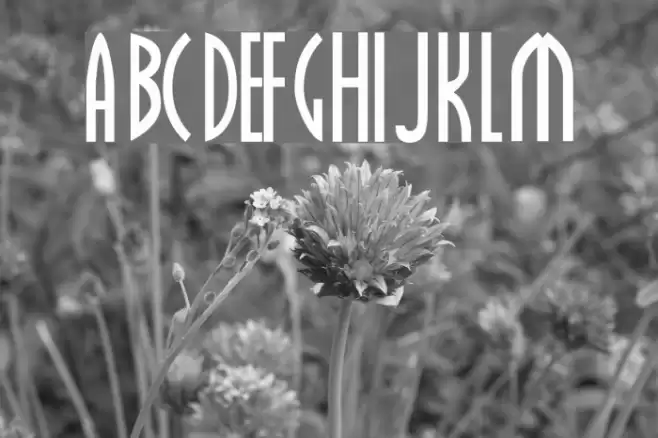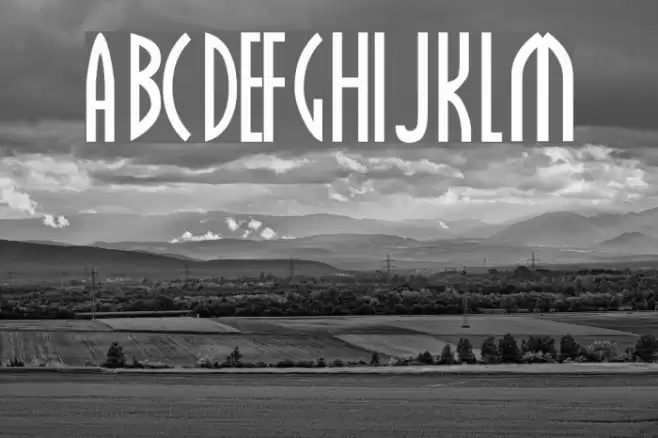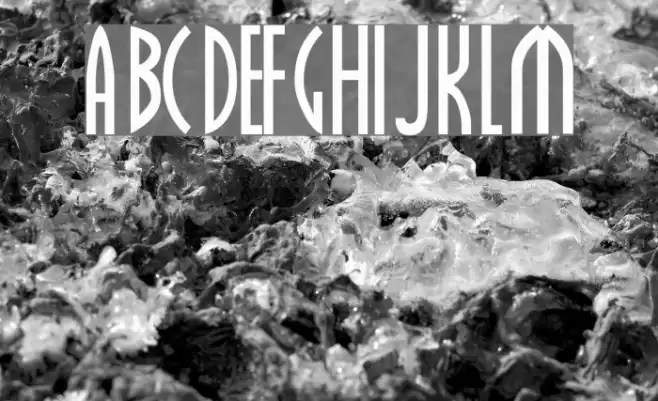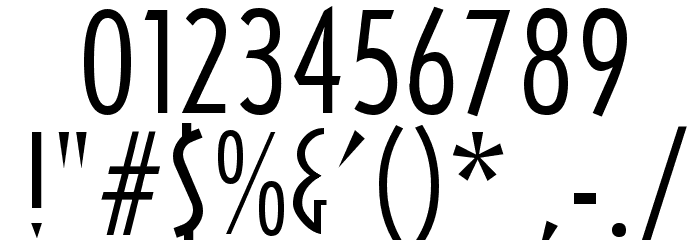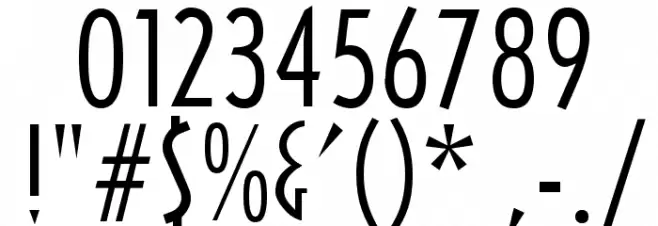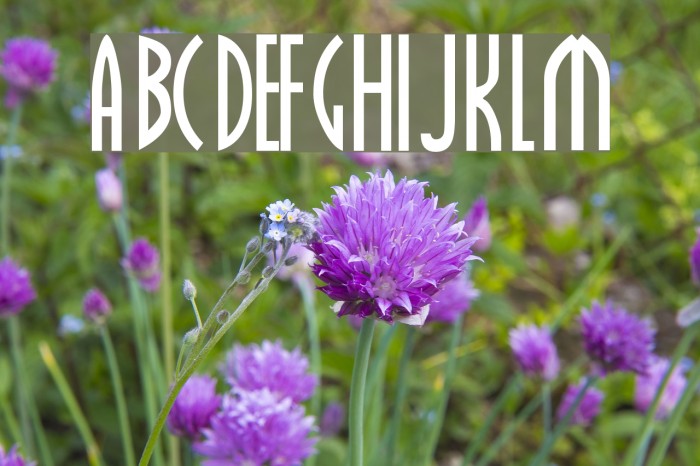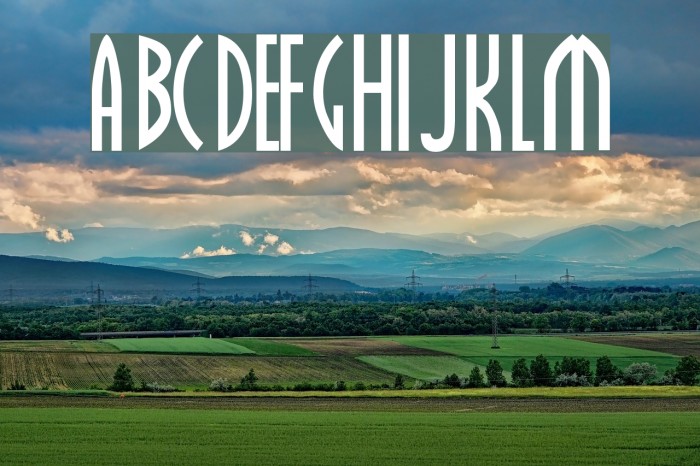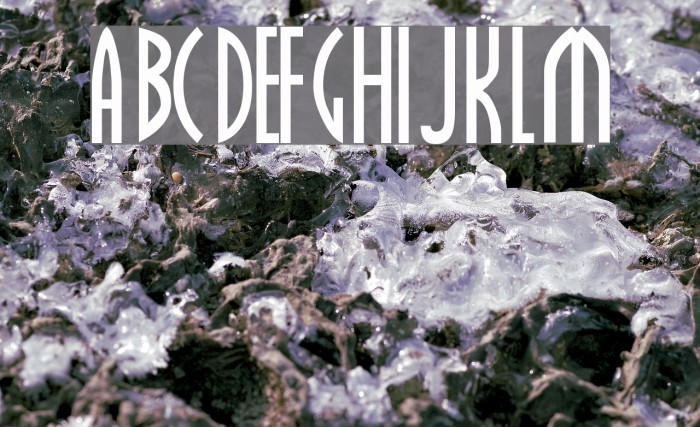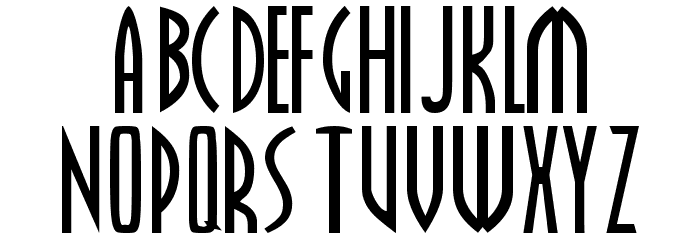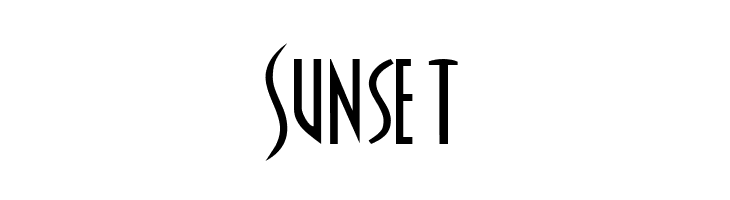
Farscape 1 Font
Farscape 1 Description
This font features a distinctive, futuristic style with elongated and narrow letterforms. The characters are tall and slender, with a geometric influence that gives them a sleek and modern appearance. The uppercase and lowercase letters maintain a consistent height, contributing to a uniform and cohesive look. The numerals and special characters follow the same design principles, ensuring a harmonious overall aesthetic. The font's unique style makes it suitable for creative and bold design projects, where a modern and eye-catching typeface is desired.
A futuristic, narrow font with elongated, geometric letterforms from Decorative fonts.
- Proposed Projects: Ideal for sci-fi themed posters, modern branding, and innovative product packaging.
- Overall Style: Futuristic